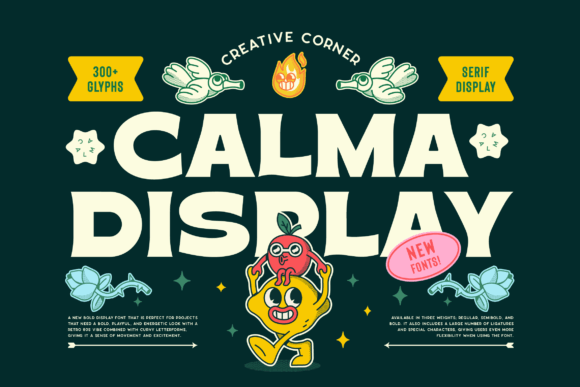
Introducing Calma Font, the ultimate choice for all your font needs! Created by the talented team at Creative Corner, this bold display font is designed to make your projects pop with a bold, playful, and energetic look that screams retro 80s vibes.
With its slightly expanded stroke endings and curvy letterforms, Calma exudes a sense of movement and excitement that will captivate your audience. It's the perfect choice for those looking to add a touch of dynamism to their designs.
But that's not all! Calma goes above and beyond with its extensive selection of ligatures and special characters. These additional features give you unparalleled flexibility and creativity, allowing you to truly unleash your imagination and create stunning visuals that will leave a lasting impression.
Whether you're working on headlines, titles, posters, packaging, or branding projects, Calma has got you covered. Its versatility makes it a go-to font for various purposes, ensuring that you can achieve the desired effect no matter the application.
And let's not forget about its digital prowess! Calma shines on websites and social media platforms, making your online presence stand out from the crowd. With Calma, you'll be able to create visually striking content that grabs attention and drives engagement.
But what truly sets Calma apart is its ability to evoke emotions. Its boldness and energy speak volumes, instantly grabbing the viewer's attention and creating a sense of excitement. Whether you're aiming for a nostalgic feel or a modern twist, Calma delivers every time.
So why wait? Elevate your designs with Calma Font today and unlock a world of creativity and visual impact. Stand out from the competition, leave a lasting impression, and make your projects truly unforgettable. Don't settle for ordinary fonts when Calma is here to take your designs to the next level.